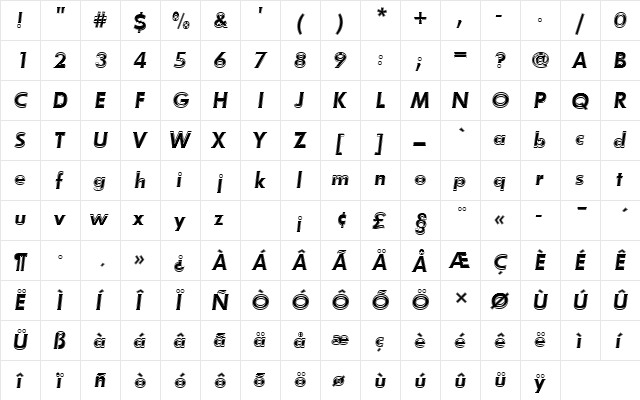
FuturaTDemOblIn1 Regular
Design Context for FuturaTDemOblIn1 Typeface
FuturaTDemOblIn1 has a distinctly futuristic character, with geometric precision and clean angles that feel at home in technology, gaming, and sci-fi contexts.
Pro Tip: Try FuturaTDemOblIn1 with generous letter-spacing in UI labels and navigation — the geometric forms benefit from room to breathe.